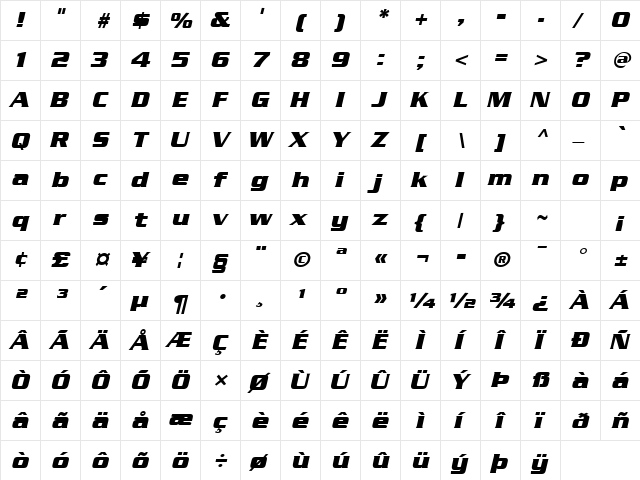
Chainlink Bold Oblique Font Preview
Design Context for Chainlink Typeface
Chainlink takes a measured approach to typography — its balanced proportions and neutral character make it a reliable workhorse for both digital and print work. The dynamic lean of this cut emphasises speed and emphasis in any layout. The heavy weight commands attention and anchors typographic hierarchies.
Pro Tip: Try Chainlink for annotation and caption copy alongside an upright companion — the contrast in angle creates a dynamic but ordered typographic system.